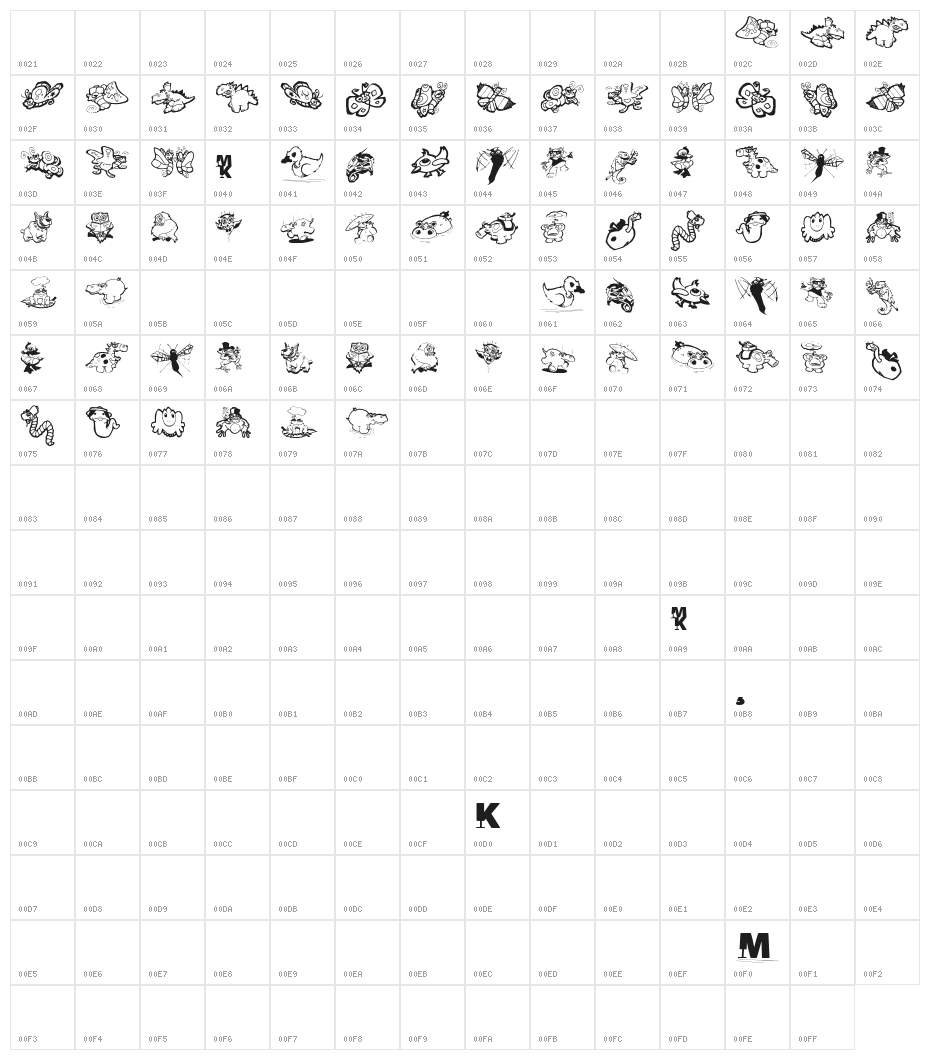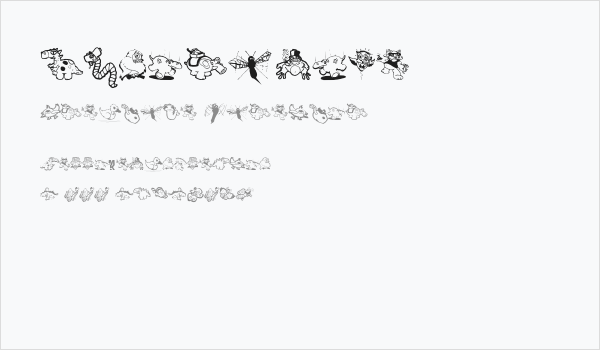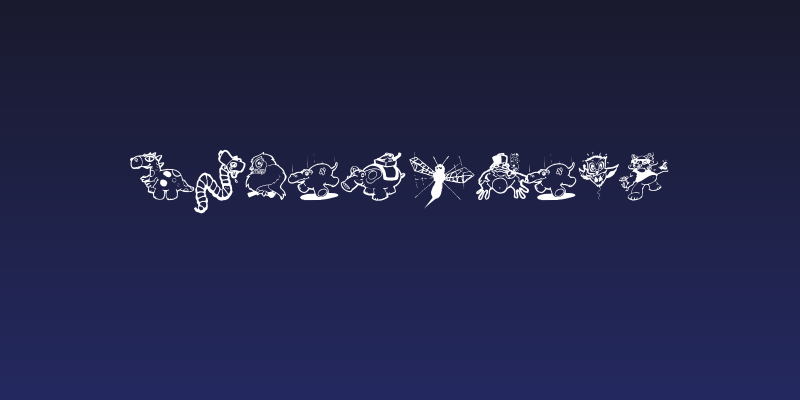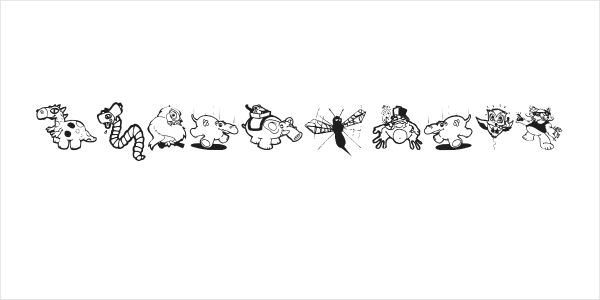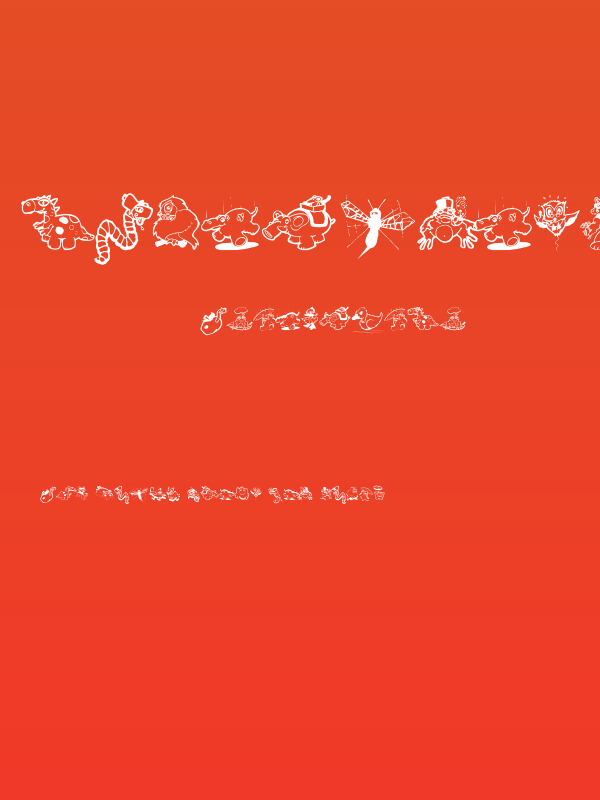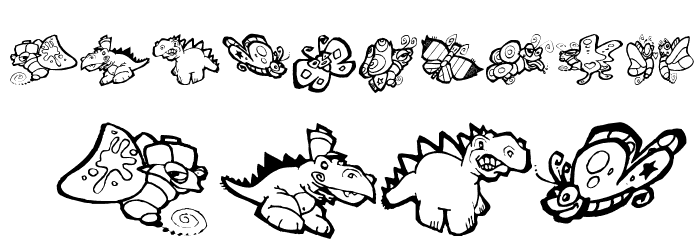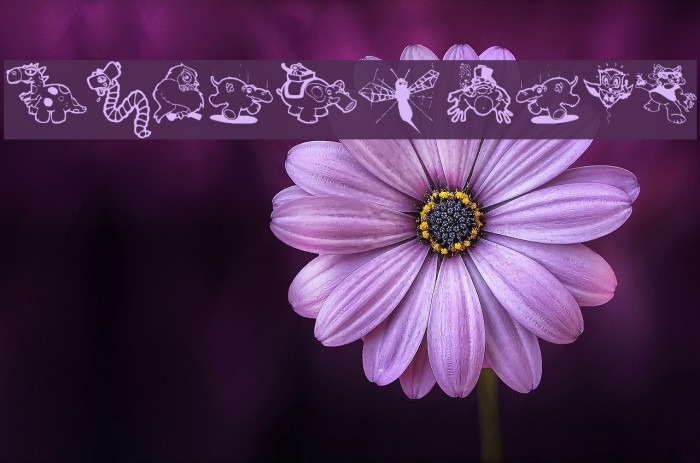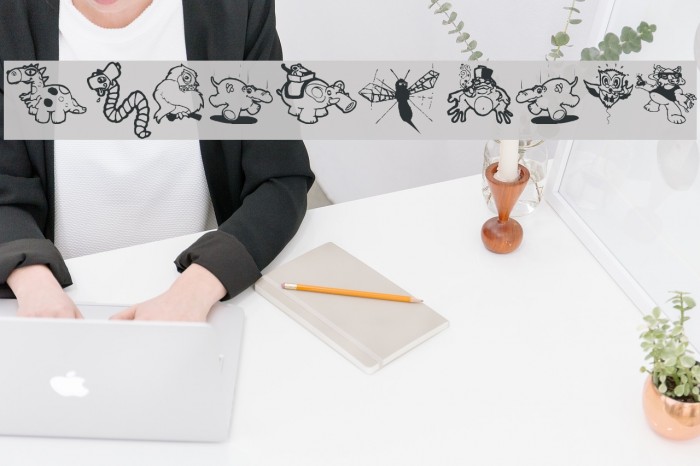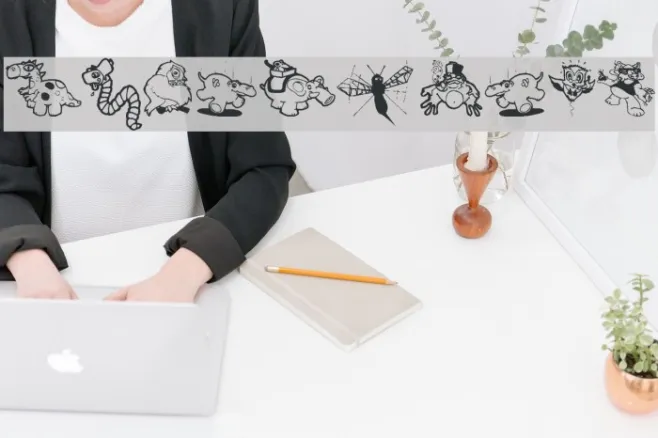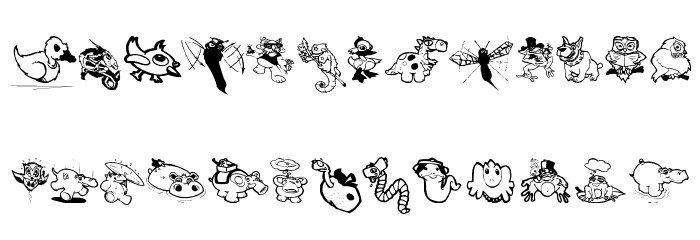
HumorixOne Font
HumorixOne Description
| Overall Style | Decorative, Playful, Whimsical |
| Use Case | Logos, Posters, Children’s content, Decorative headings |
| Proposed Projects | Children’s books, educational materials, playful branding, greeting cards, stickers, and party invitations. |